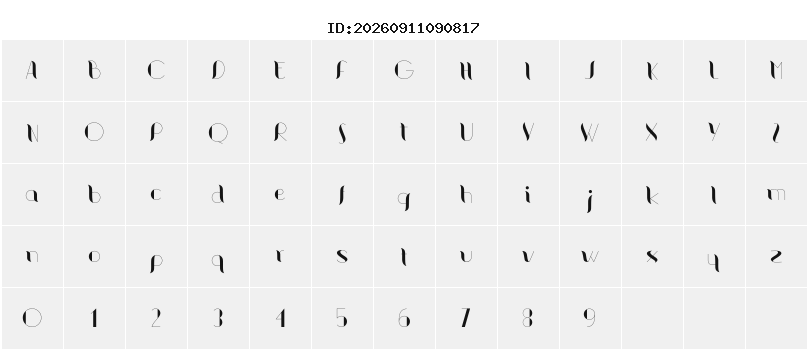
Valerie Preview
• Font Name: Valerie
• Full Font Name: Valerie Medium
About Valerie.ttf
Valerie.ttf is a modern, elegant sans-serif font designed for ultimate readability and visual harmony. Perfect for branding, headlines, web design, and print materials.